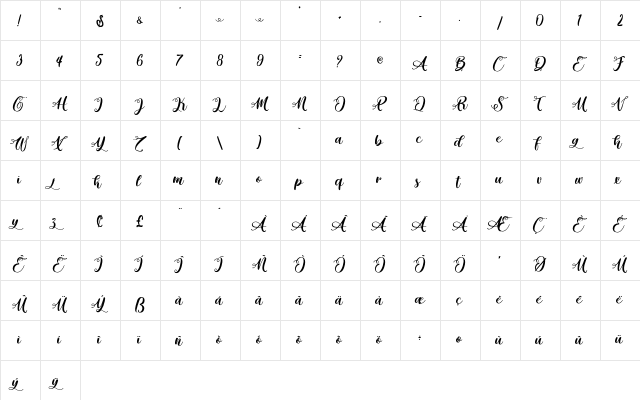
Rhinos Land - Personal Use Regular
| Foundry | Typhoon Type - Suthi Srisopha |
| Designer | Typhoon Type - Suthi Srisopha |
Design Context for Rhinos Land - Personal Use Typeface
Rhinos Land - Personal Use is a composed and adaptable typeface that performs quietly and consistently across a wide range of design contexts.